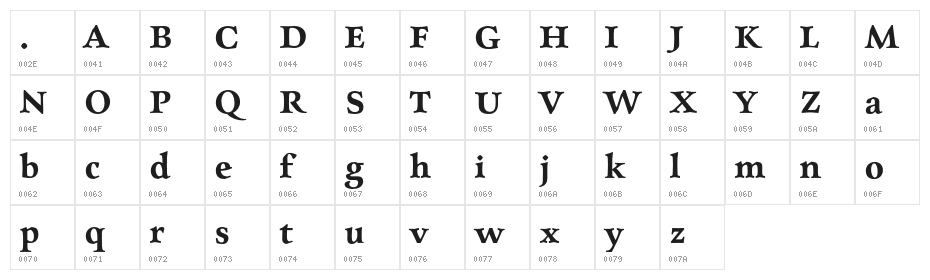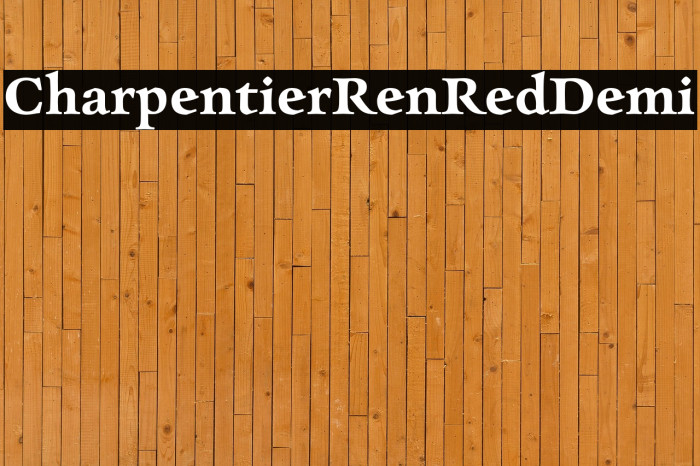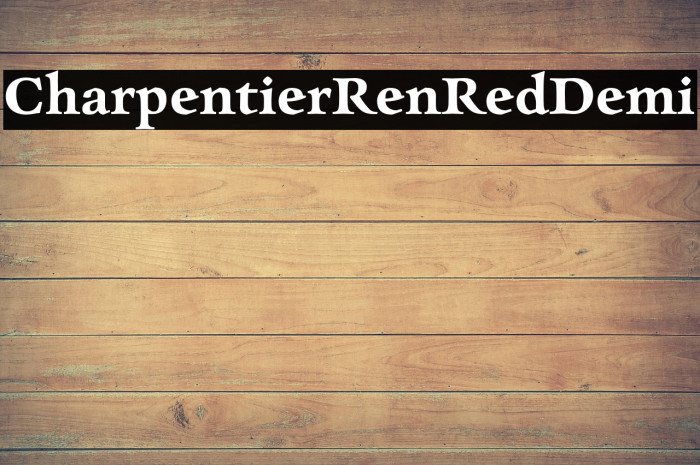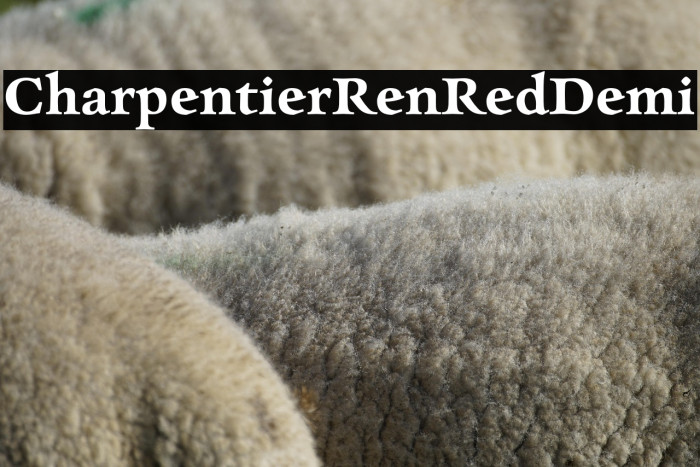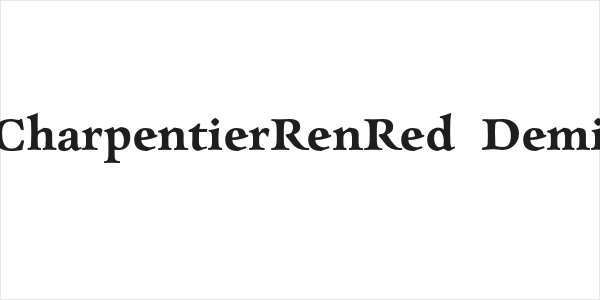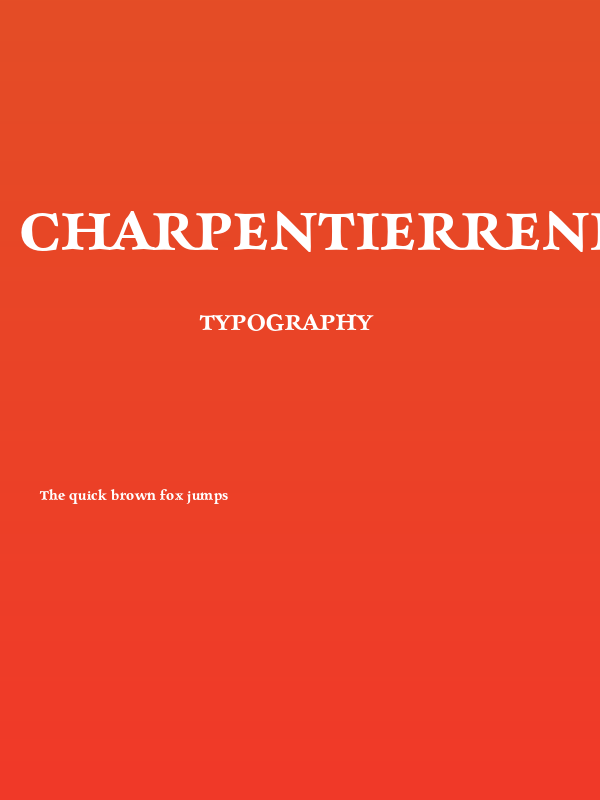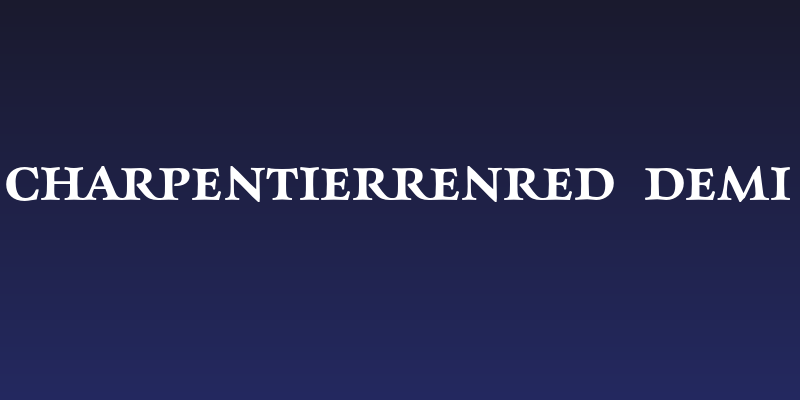
CharpentierRenRed-Demi Font
CharpentierRenRed-Demi Description
This font features a classic serif style with a touch of elegance and sophistication. The characters exhibit a moderate contrast between thick and thin strokes, giving it a refined appearance. The serifs are pronounced and slightly curved, adding a traditional yet stylish flair. The overall design is balanced, with a slight inclination towards a vintage aesthetic. The uppercase letters are bold and commanding, while the lowercase letters maintain a consistent flow, making it suitable for both headings and body text. The font's structure is solid, ensuring readability across various sizes.
| Use Case | Headlines, Body text |
| Proposed Projects | Ideal for book covers, formal invitations, branding, and editorial design. |